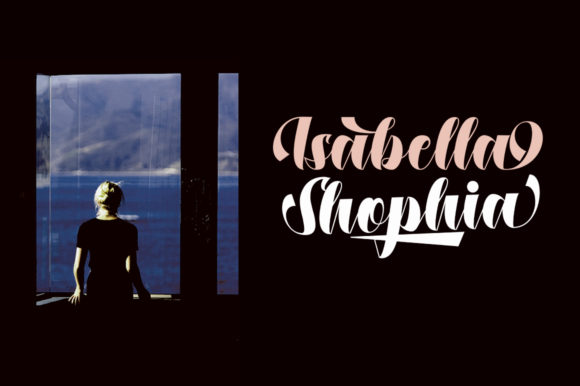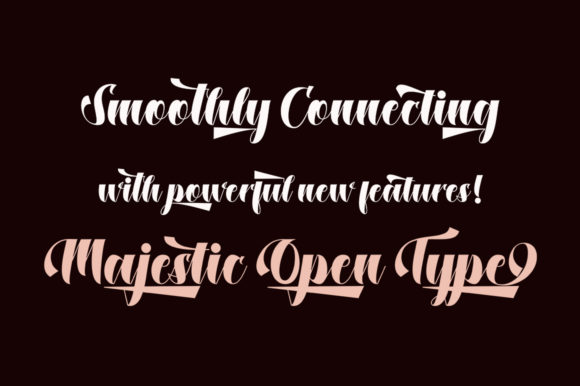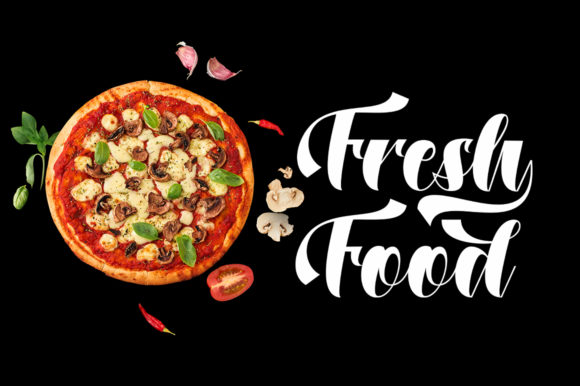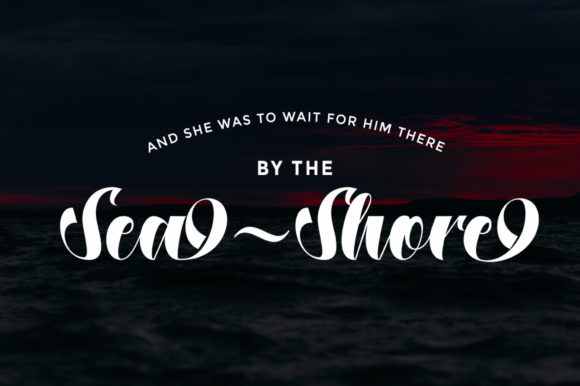
Dustine Font
About Dustine Font
Dustine is an extraordinary and bold script that is suitable for a large number of designs. Fall in love with its playful look & feel!